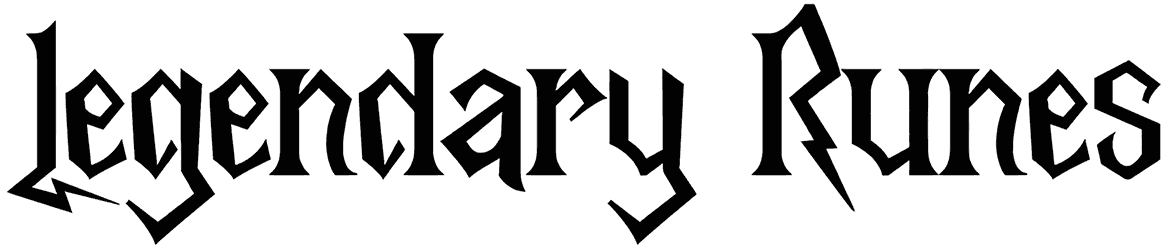
Legendary Runes Font
Designed byTypefactoryco
Illustrate a magical and exciting show with this fantasy font and be impressive. Legendary Runes with a broken and thunder-like letter style can give your design a special and memorable appearance. Even the absence of most punctuation marks doesn’t prevent this gothic font from beautifully displaying your design, like posters, games, movies, comics, or whatnot.